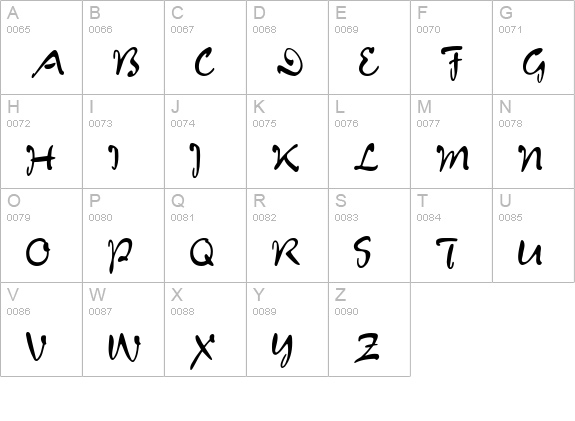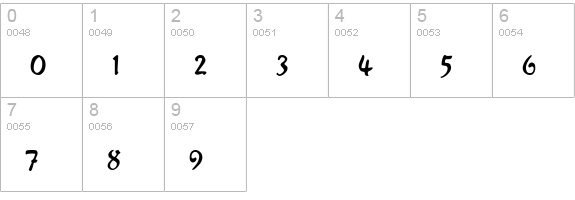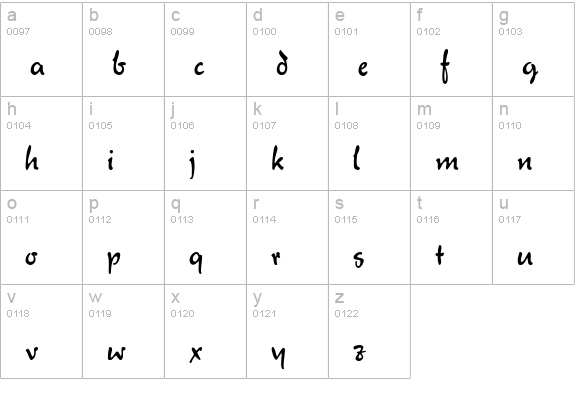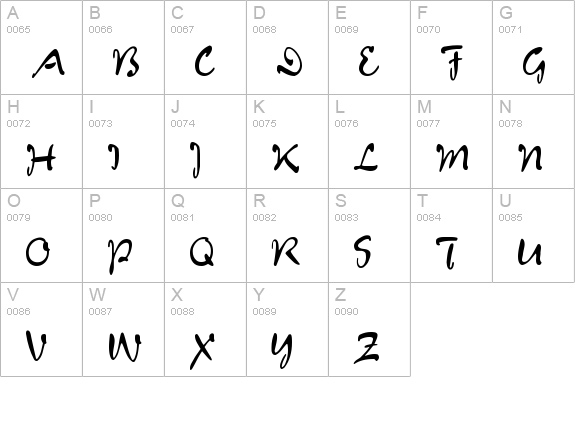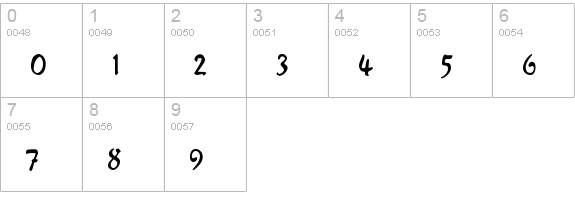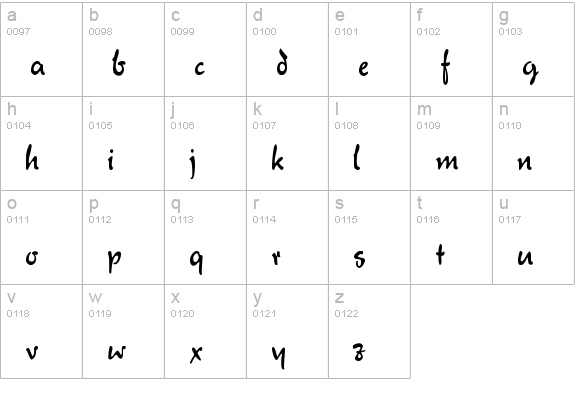
Verona Script MF Font Details
Verona Script MF is a stunning and elegant script font that exudes sophistication and charm. Its flowing strokes and graceful curves make it perfect for adding a touch of class to any design project. Whether you're creating wedding invitations, logos, or branding materials, Verona Script MF will definitely make your work stand out. What makes Verona Script MF even more appealing is that it is completely free to download. Yes, you read that right - this beautiful font is freely available at FontsMarket.com. So go ahead and elevate your designs with the timeless beauty of Verona Script MF today!